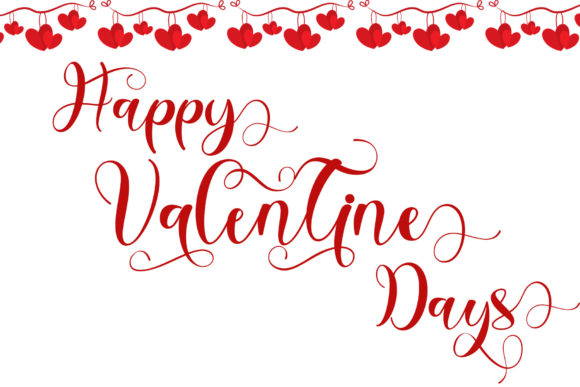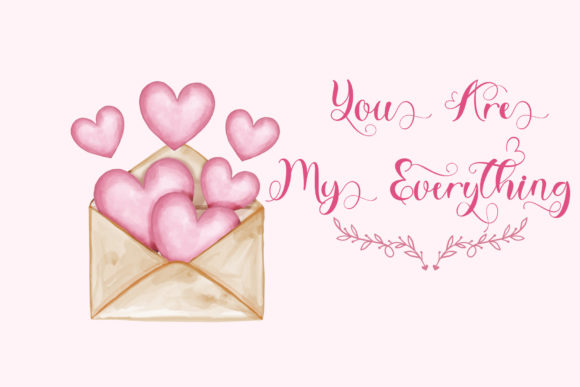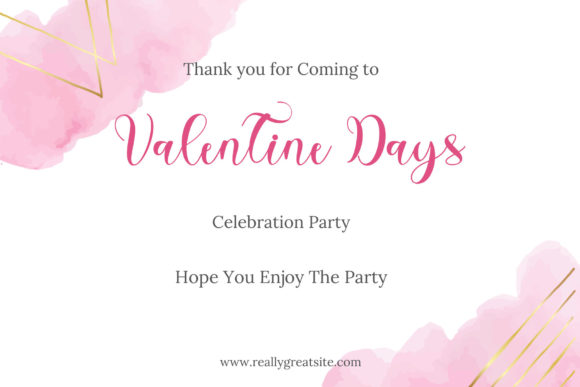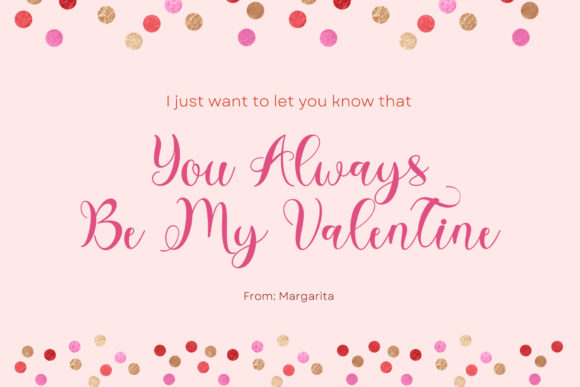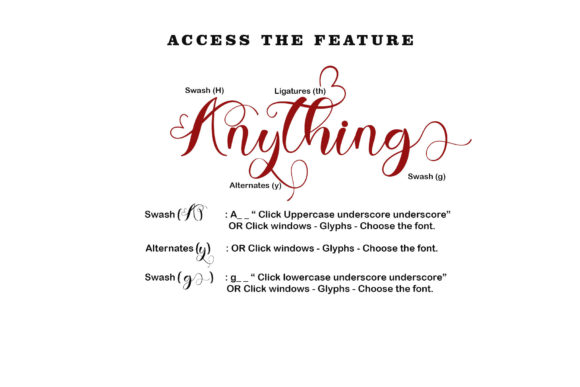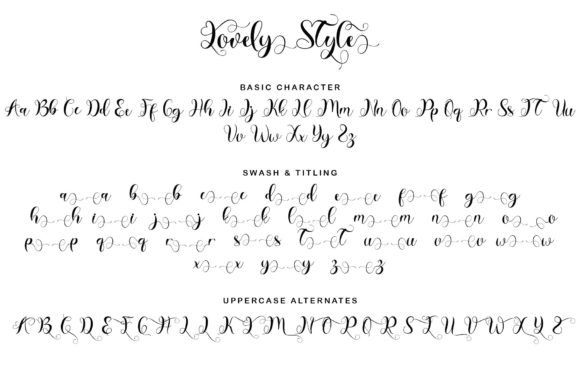
Introduction to Lovely Style Font
As I sat at my desk, surrounded by scraps of paper, paint, and glue, I was brainstorming ideas for a new craft project. The blank canvas stared back at me, begging for inspiration. That’s when I stumbled upon the perfect design resource: Lovely Style Font. Its elegant script and high-quality details transported me to a world of creativity, and I knew I had to share it with fellow designers and crafters.
Lovely Style Font is more than just a pretty face – it’s a valuable tool for any creative project. With its PUA-encoded features, you can easily access all the glyphs and swashes, giving you endless possibilities for customization. Whether you’re working on a card, label, or branding project, this font is sure to elevate your design and make it stand out from the crowd. And the best part? You can download it for free, making it an accessible design resource for everyone.
As a designer, you understand the importance of high-quality design resources. Lovely Style Font delivers on that promise, offering a transparent background and crisp, detailed lines that are perfect for any project. Whether you’re a seasoned pro or just starting out, this font is sure to become a go-to design companion.
Key Features of Lovely Style Font
- High-quality design resource for creative projects: Lovely Style Font is a versatile and stylish font perfect for various design needs.
- Unique characteristics: Lovely Style Font features a unique blend of elegance and playfulness, making it perfect for a wide range of design applications.
Honest Review: Lovely Style Font
I recently came across the Lovely Style Font, and I must say, it’s been a great addition to my design resource library. ✨ The font is perfect for any creative project that requires a touch of elegance and sophistication.
- High-quality design that’s perfect for professional projects
- Available in a range of styles and weights, giving designers plenty of flexibility
However, I did notice a few limitations: ⚠️ the font is not ideal for large-scale text, and some users may find it a bit too ornate for certain designs.
Overall, I’m thoroughly impressed with the Lovely Style Font. It’s a great addition to any designer’s toolkit, and I would definitely recommend it to anyone looking for a high-quality, elegant font. The free download option is a major plus, making it accessible to designers of all skill levels and budgets.
For the most out of the Lovely Style Font, use it in creative projects where a high-quality, elegant font is needed. Common use cases include wedding invitations, branding materials, and social media graphics. Remember to adjust the font size and style to ensure readability and visual appeal.